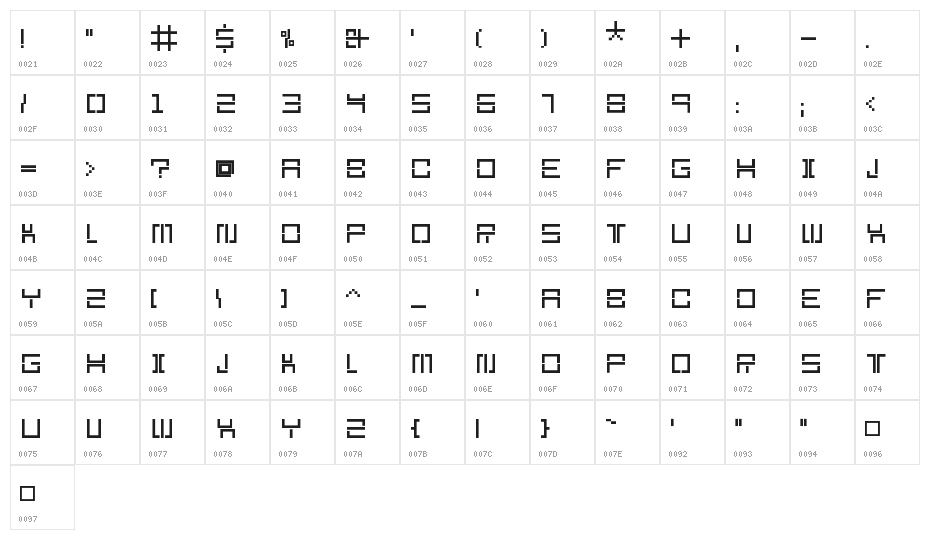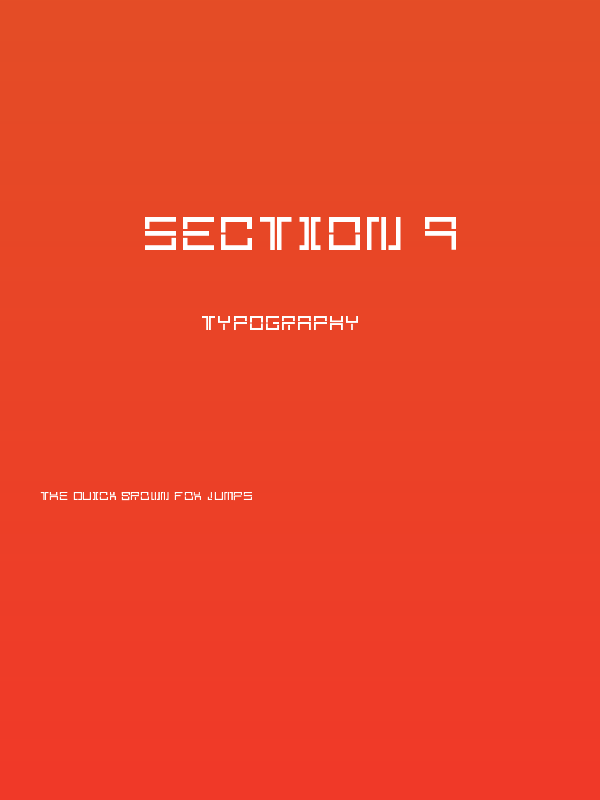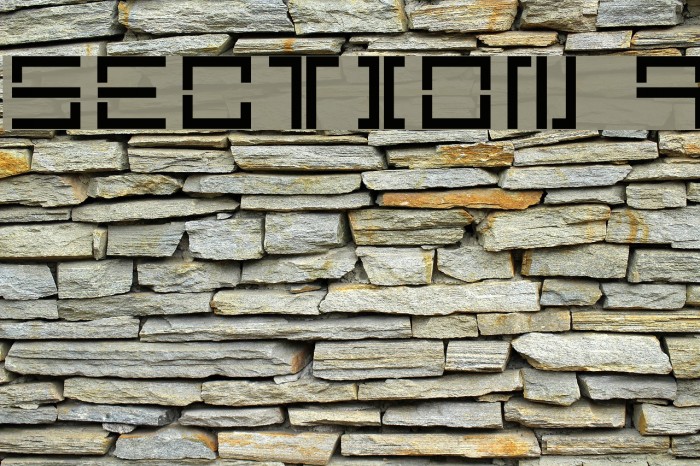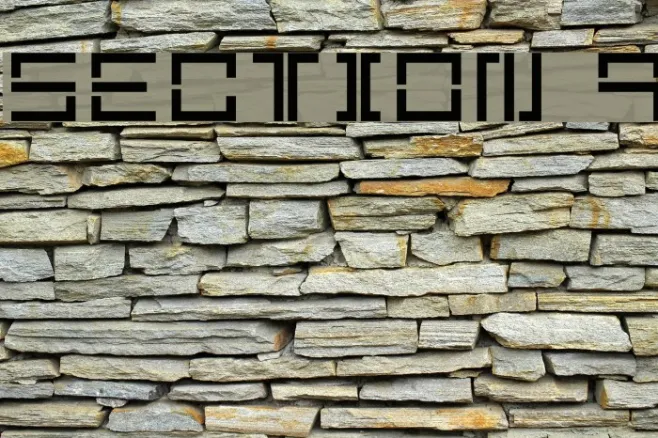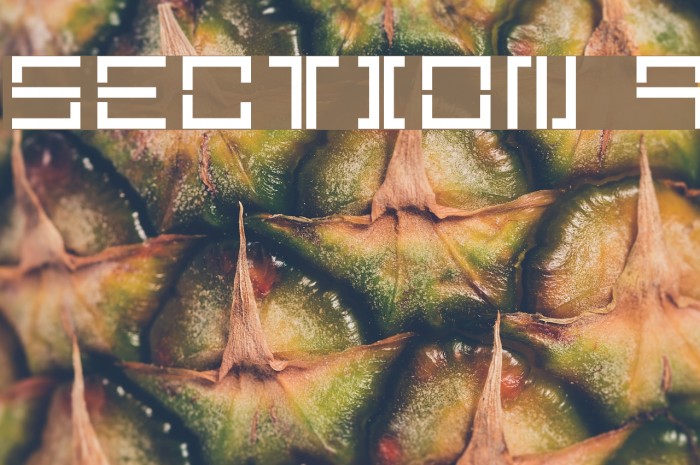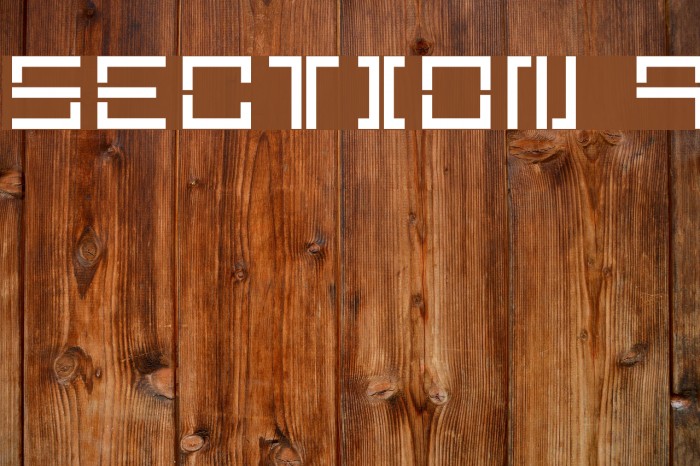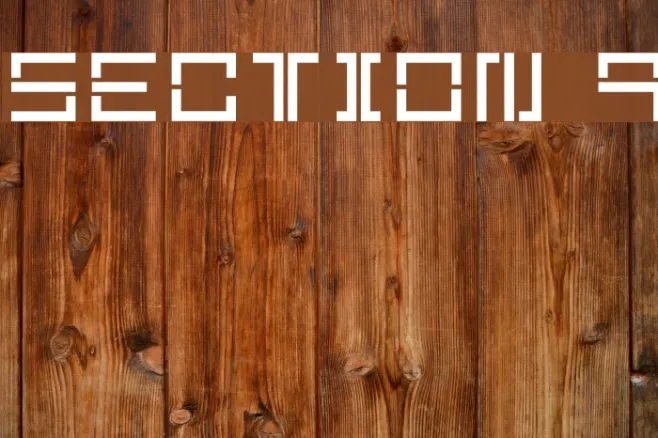
Section 9 Font
Section 9 Description
This font features a geometric, blocky design with a futuristic and digital aesthetic. Each character is constructed with sharp, angular lines and a consistent stroke width, giving it a uniform and structured appearance. The uppercase letters are bold and prominent, while the lowercase letters maintain the same geometric style, ensuring readability and cohesion. The numerals and special characters follow the same design principles, making them easily distinguishable. This font's overall look is reminiscent of digital displays or retro video game graphics, making it ideal for projects that require a modern yet nostalgic touch.
| Use Case | Headlines, Logos, Digital displays |
| Proposed Projects | Ideal for digital displays, video game graphics, tech branding, and futuristic-themed designs. |